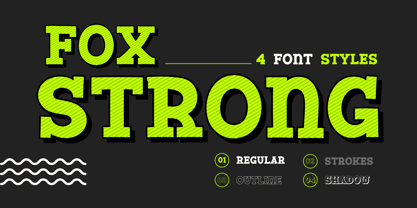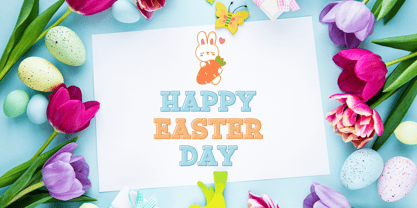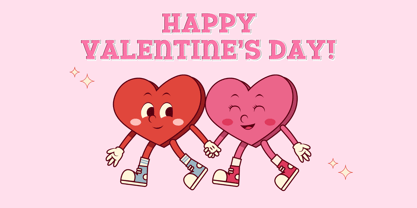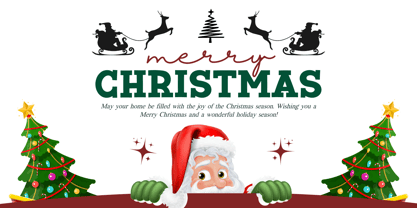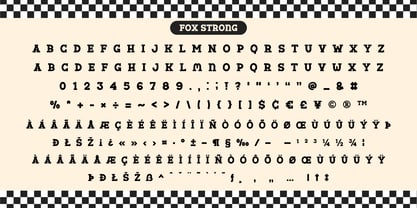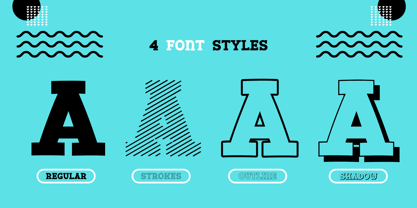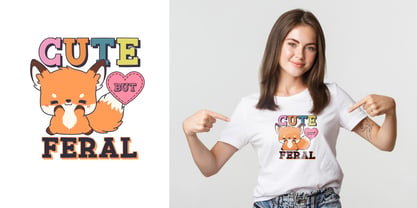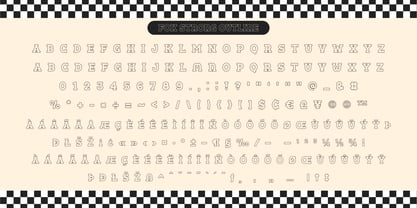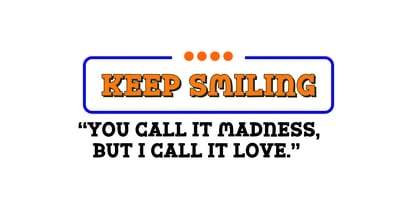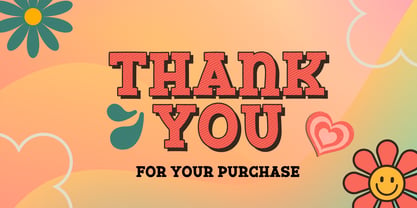
Fox Strong
La familia tipográfica Fox Strong fue diseñada por Rattana Rattanawan y publicada por Fox7. Fox Strong contiene 4 estilos y opciones de paquete familiar. Más información sobre esta familia
Fox Strong is a bold, energetic slab serif font that exudes confidence and strength. With its four unique styles— Regular, Strokes, Outline, and Shadow —it offers versatility for various creative projects. Whether you're designing eye-catching headlines, branding materials, posters, or apparel prints, Fox Strong provides a solid and stylish typographic presence.
Perfect for sports-themed designs, urban fashion, or playful branding, Fox Strong ensures your text stands out with a mix of fun and authority. Let your creativity run wild with this energetic and adaptable typeface!